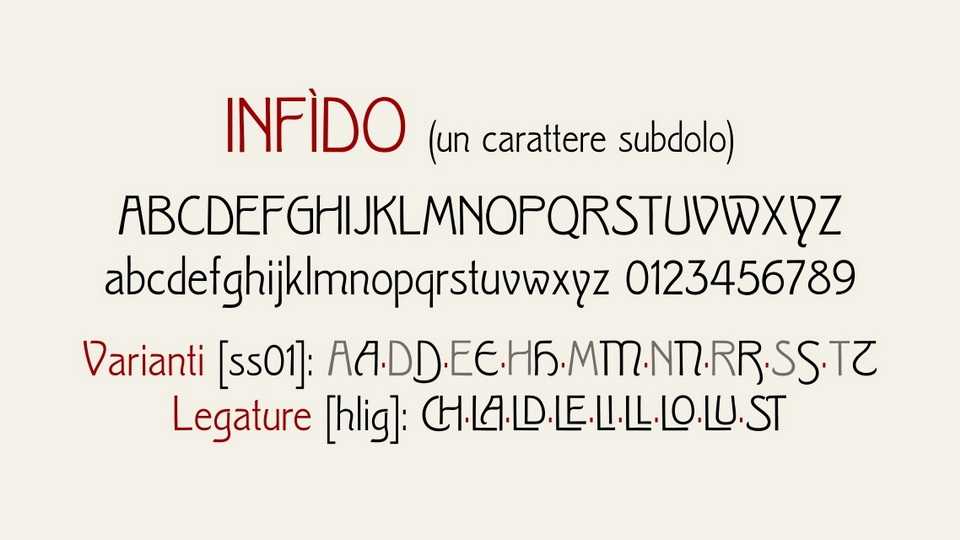
Download Infido font, a typeface based on scans of the Clio or Kleopatra character designed by Wagner & Schmidt (circa 1903) and in Italy referred to as Fidia (Nebiolo); Bold and italics were also created, not considered for this font.
Designer: Michele Casanova